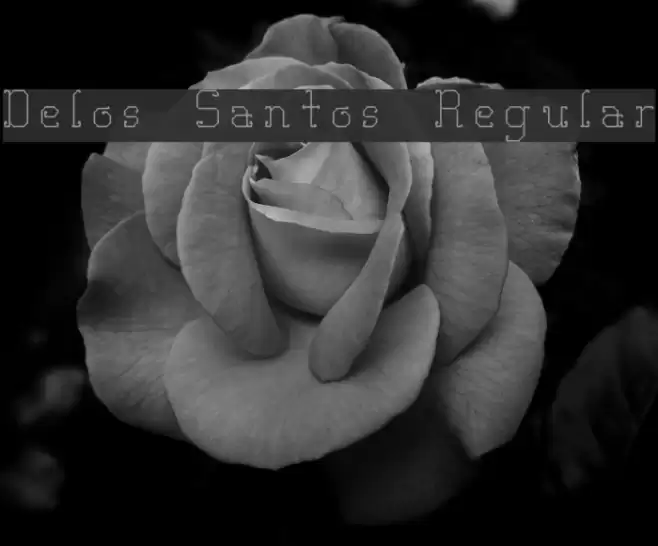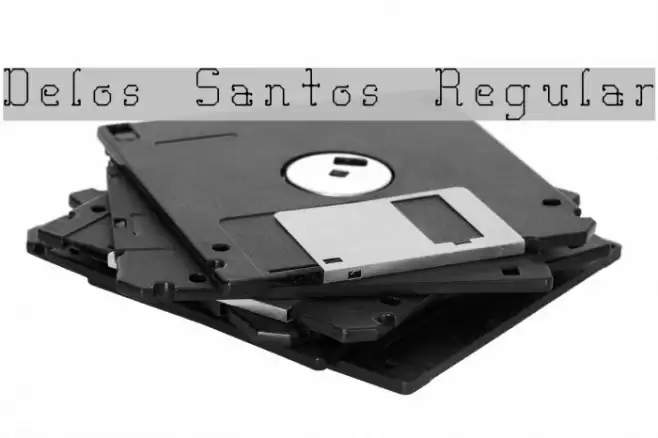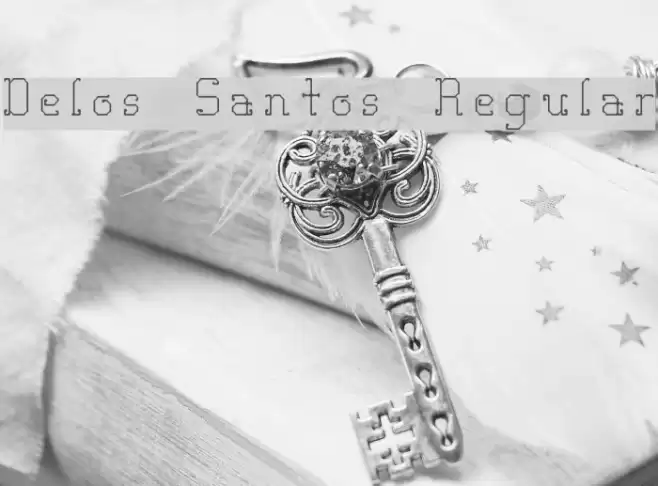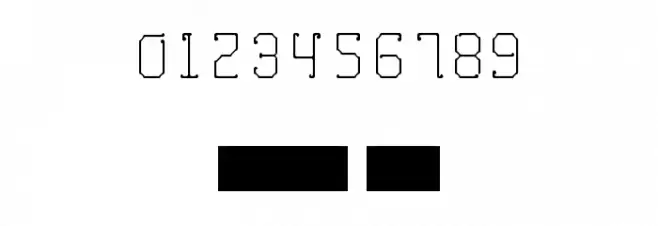
Delos Santos Regular Font
Delos Santos Regular Description
This font features a unique, decorative style with a modern twist. Each character is outlined with a thin, consistent stroke, creating a geometric and slightly mechanical appearance. The uppercase letters are bold and structured, with distinct corners and straight lines, while the lowercase letters maintain a similar style but with a softer, more rounded approach. The numerals are consistent with the overall design, offering a clean and readable look. Special characters are included, maintaining the same stylistic elements. This font's distinct appearance makes it suitable for creative projects that require a modern and innovative touch.
A modern, decorative font with geometric and mechanical elements from Uncategorized fonts.
- Proposed Projects: Ideal for branding, posters, and creative digital projects that require a modern and unique aesthetic.